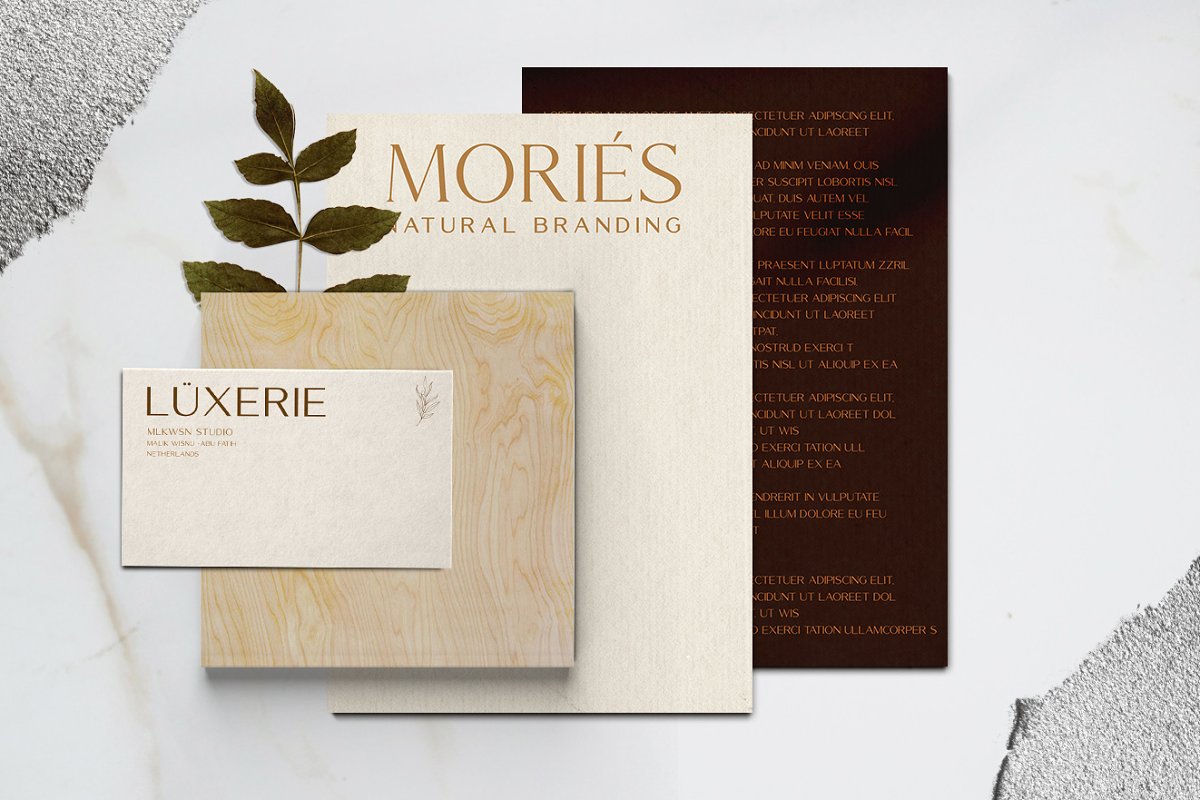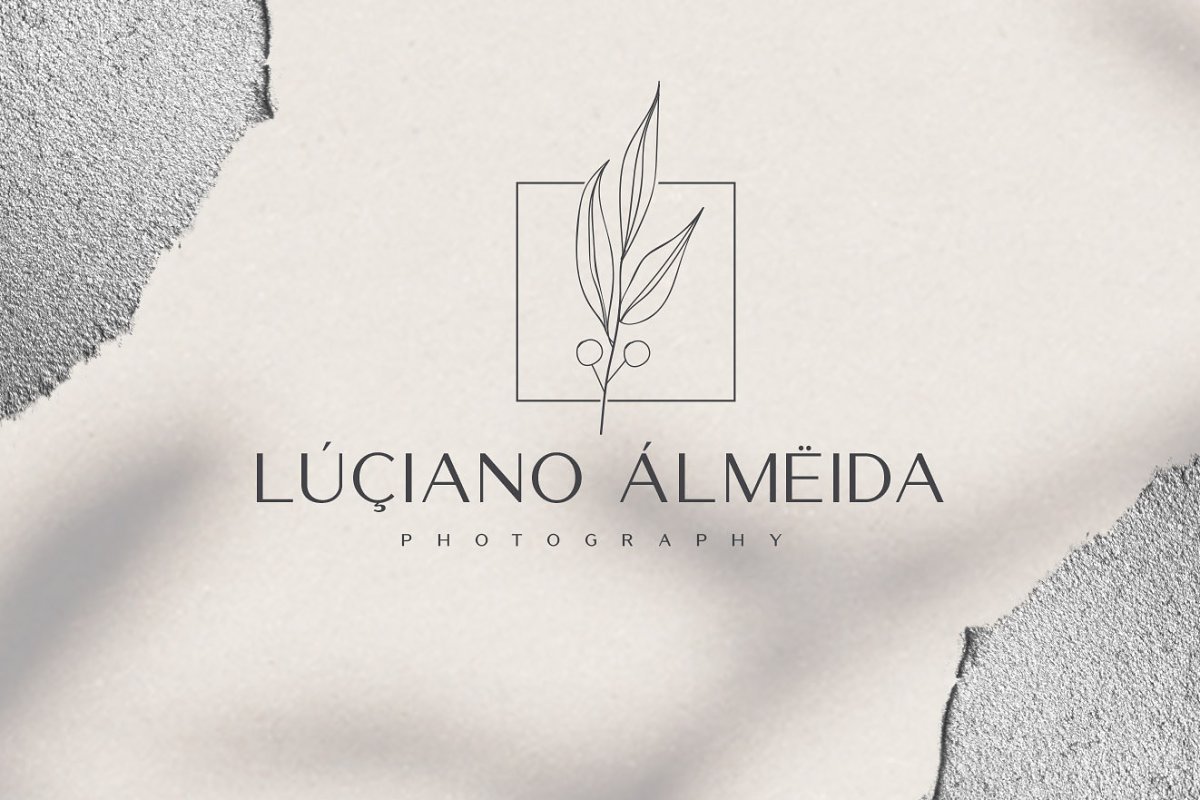
About the Mories Luxerie Elegant Duo Font
hello everyone, introduce our new collection Mories Luxerie – legan font duo with a combination of sans and serif and unique letters to complete the display when you combine it into a logo or brand, Mories Luxurie is inspired by the world famous fashion logo, by making it look modern and professional, don’t forget you will get an editable logo bonus that you can change, saving you time